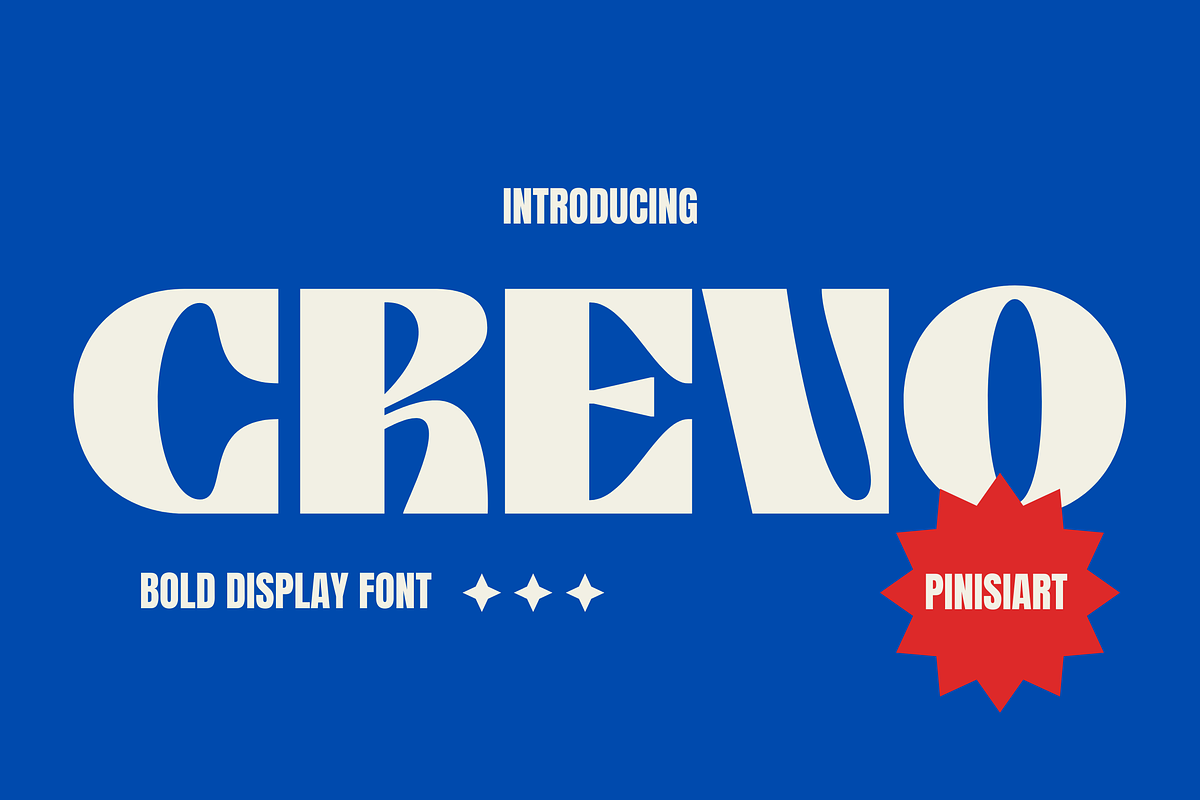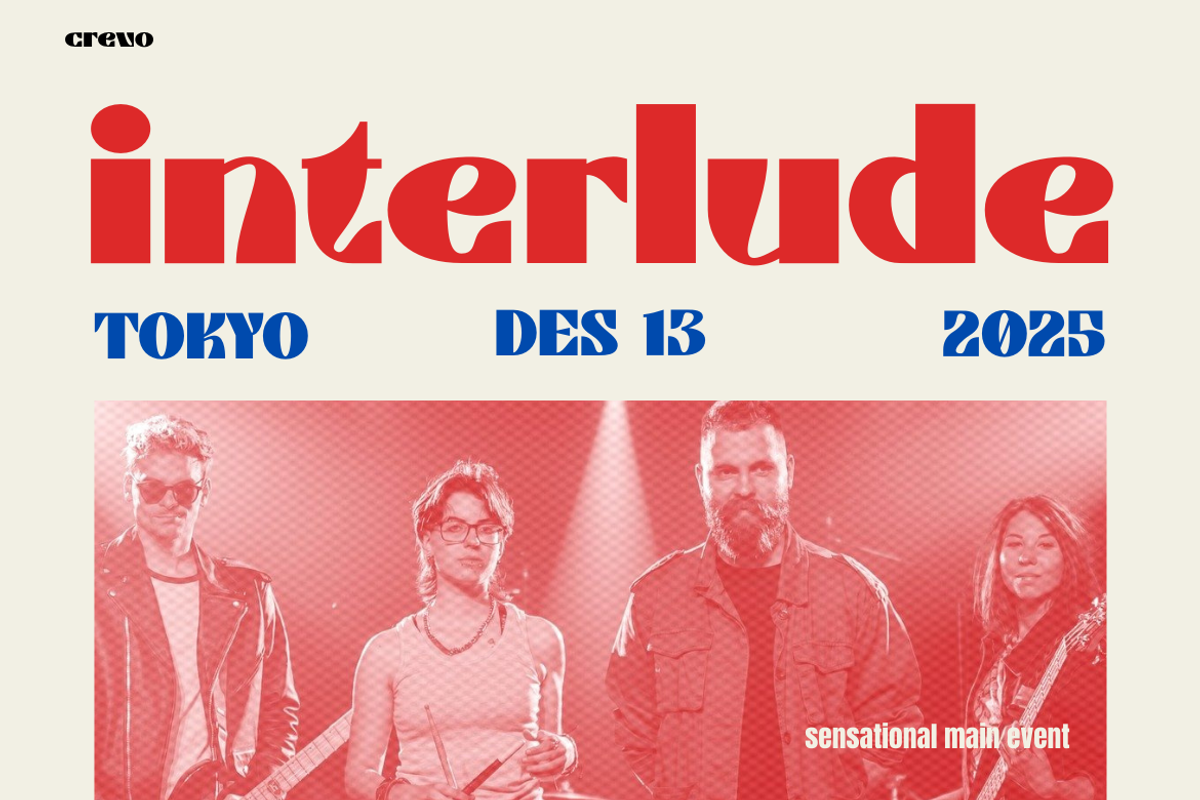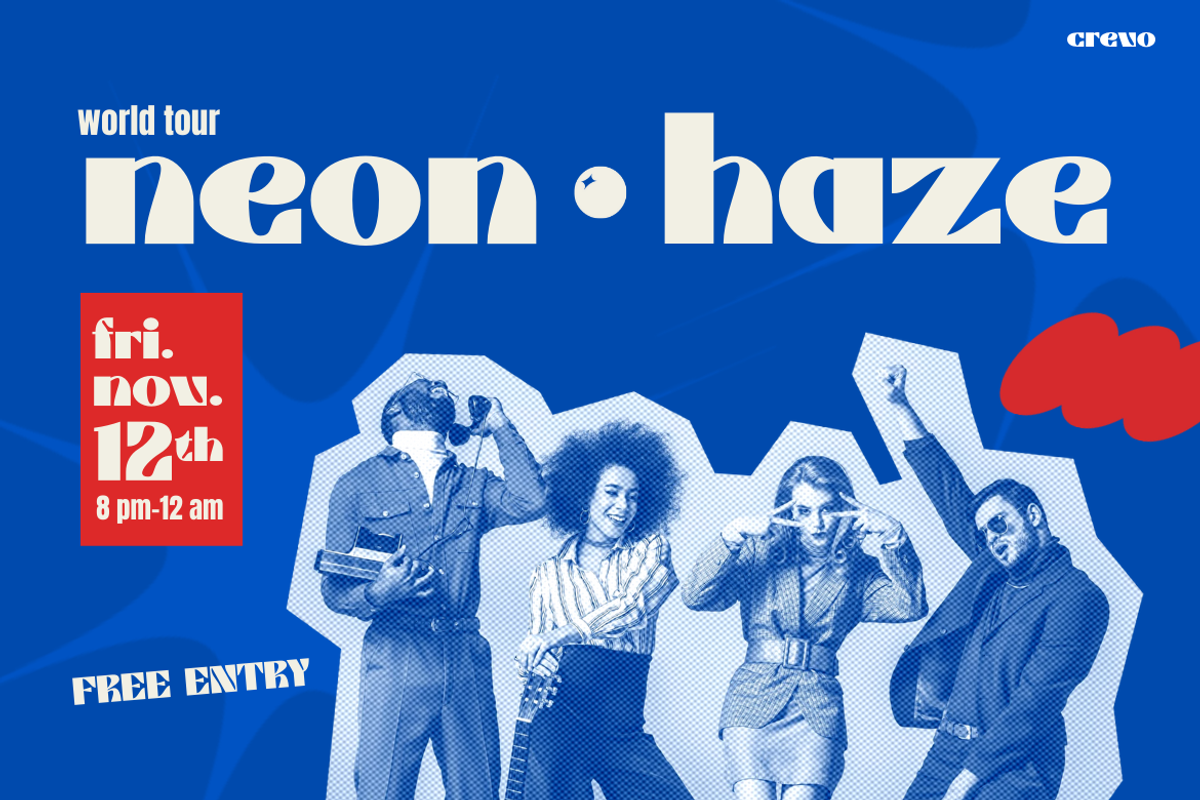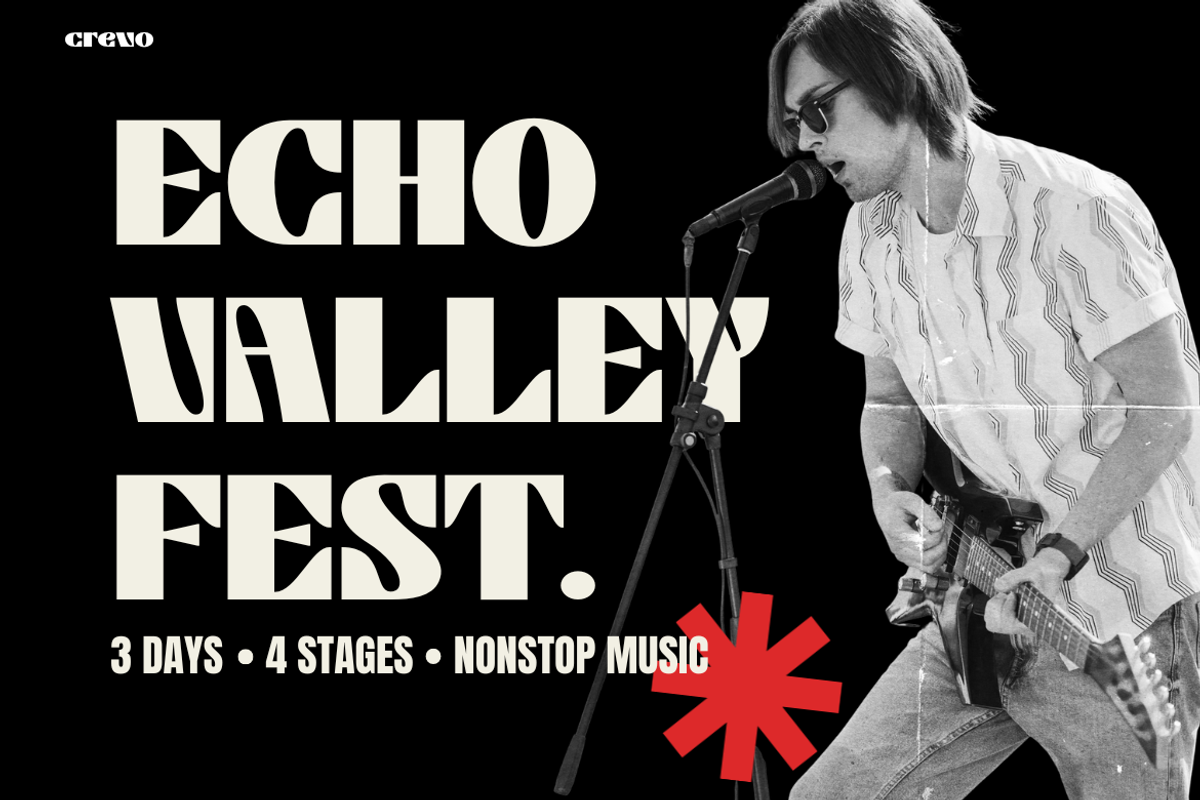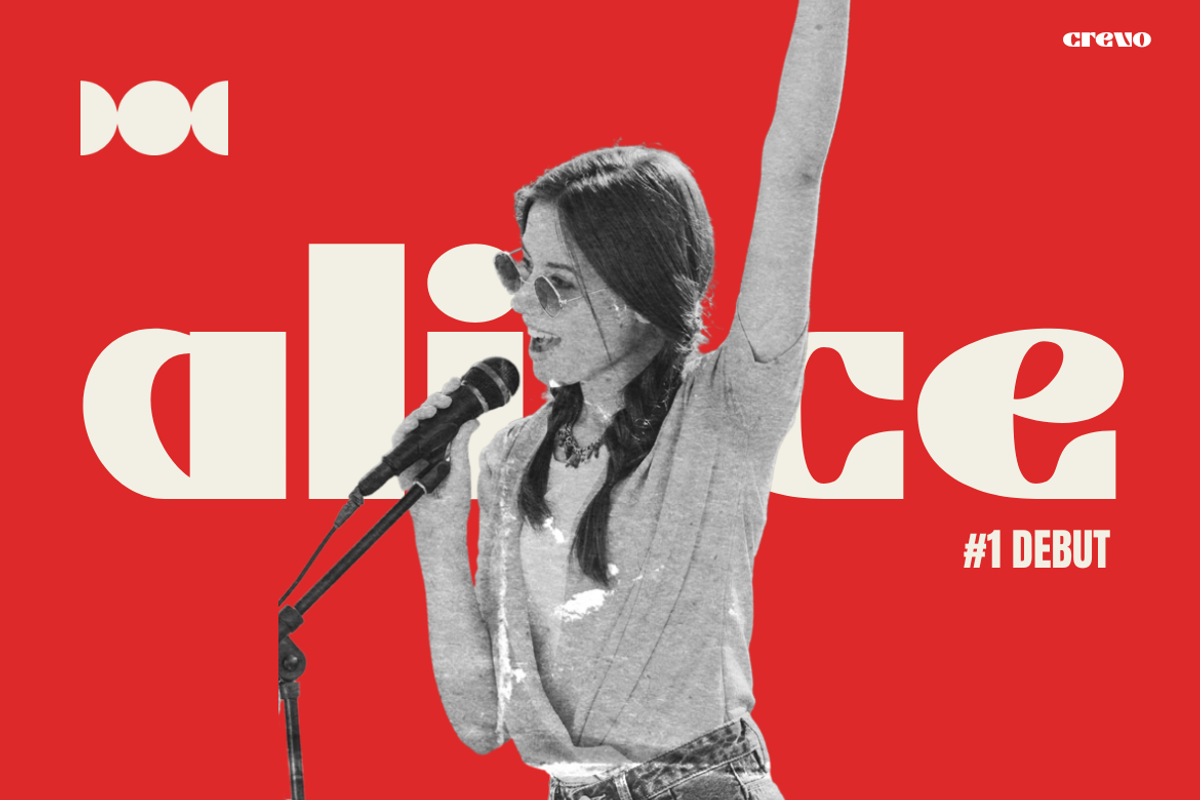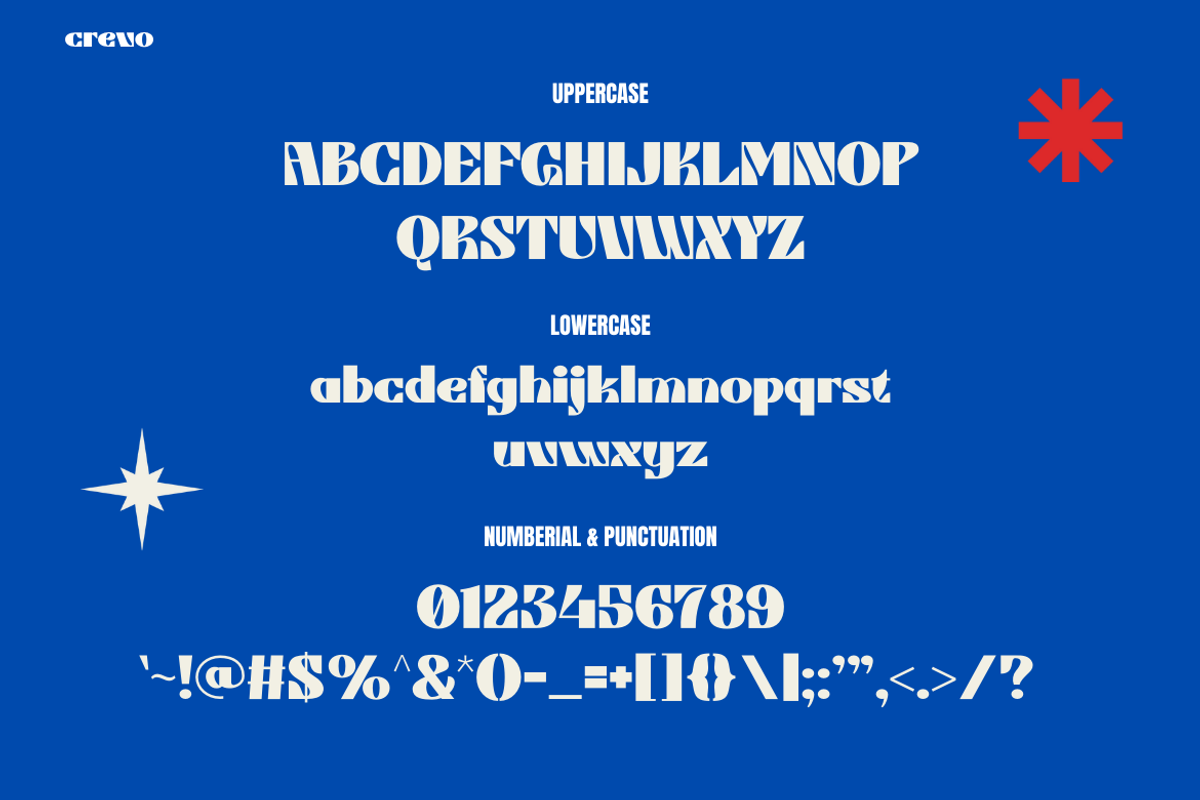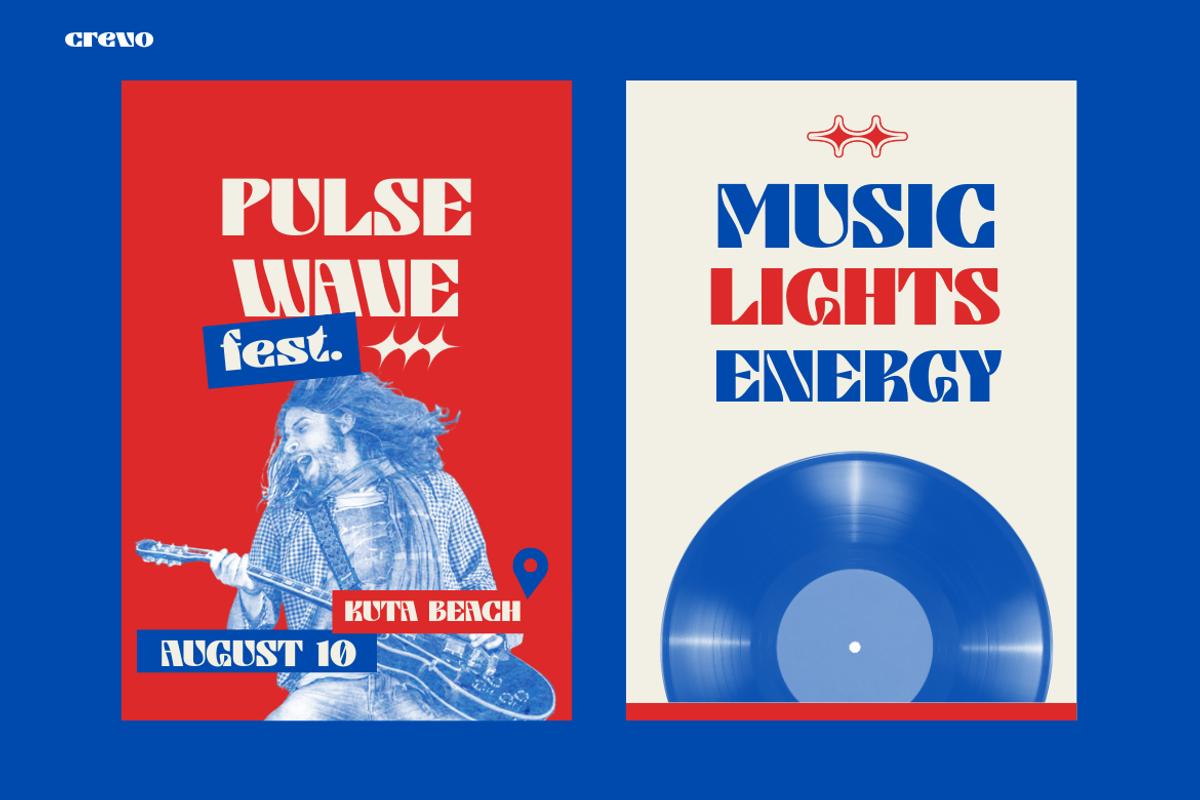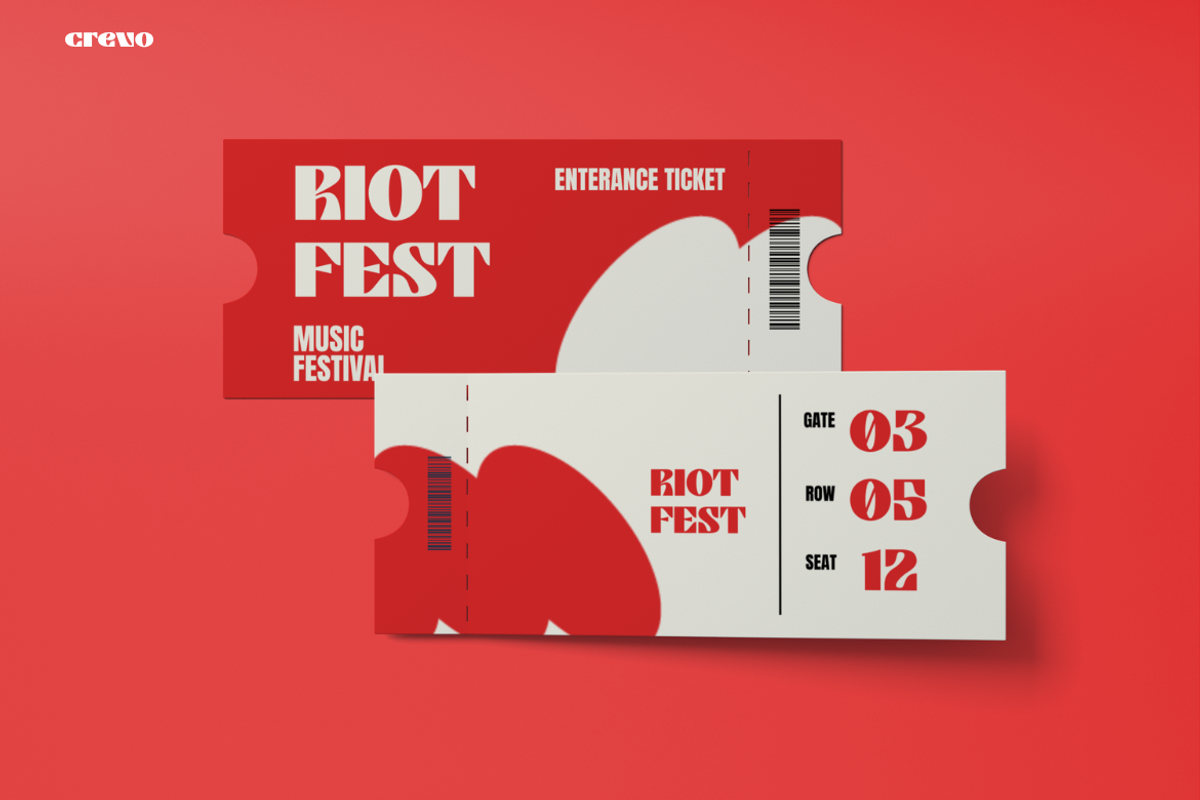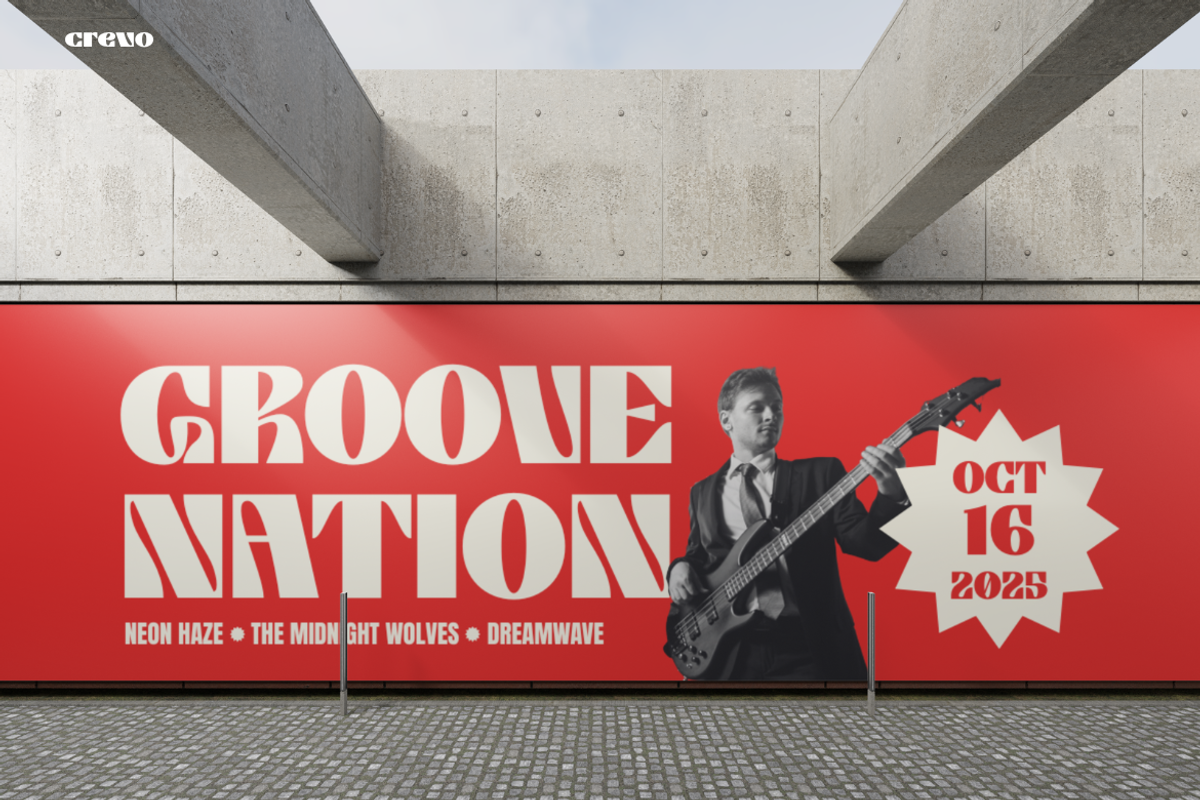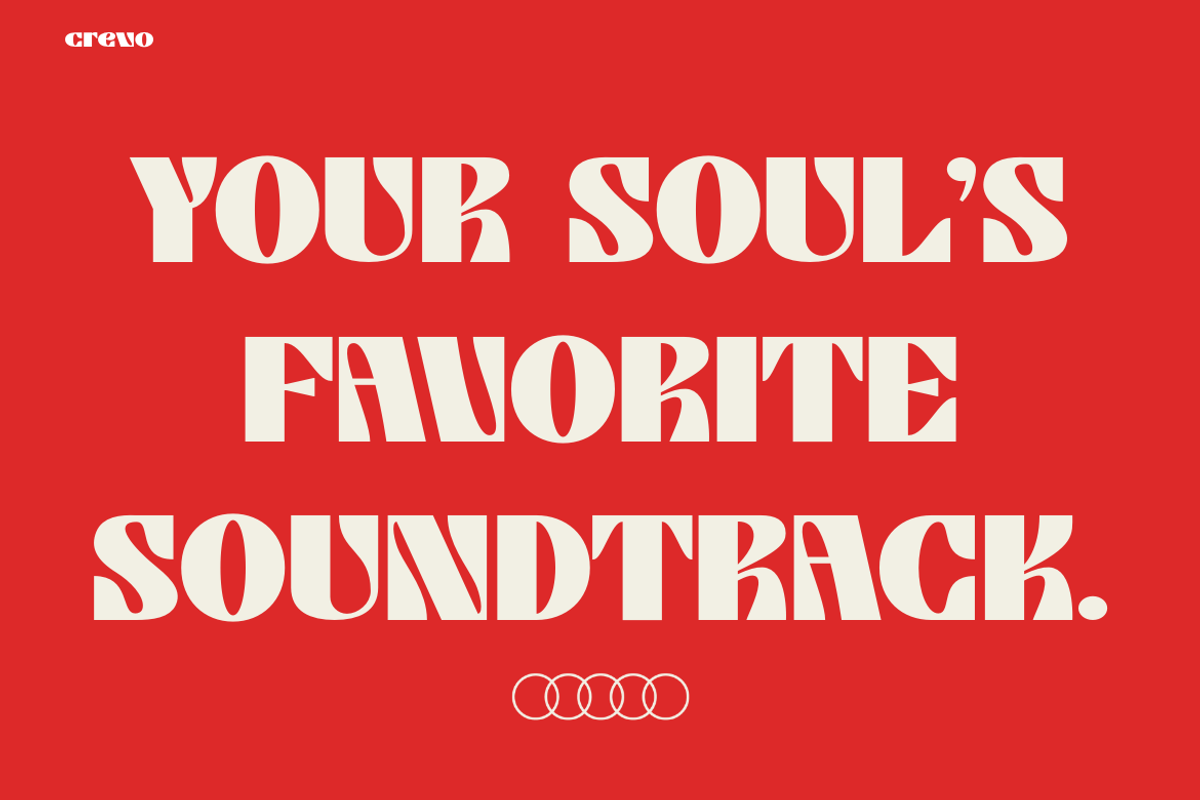
CREVO
Instagram Font CREVO – Bold, Stylish, and Versatile Instagram Font CREVO is a bold and unique typeface that instantly grabs attention. Moreover, its playful yet strong shapes make it perfect for modern design. The balance between sharp edges and smooth curves creates a look that feels fresh and exciting. Therefore, when you use this font, your text transforms into a visual statement that is both stylish and powerful.
This font is more than just attractive—it is also functional. It reads well at large sizes, so it shines on posters and banners. In addition, the bold personality makes it suitable for digital campaigns, packaging, and merchandise. Every letter carries energy, and as a result, your design gains a confident tone that cannot be ignored.